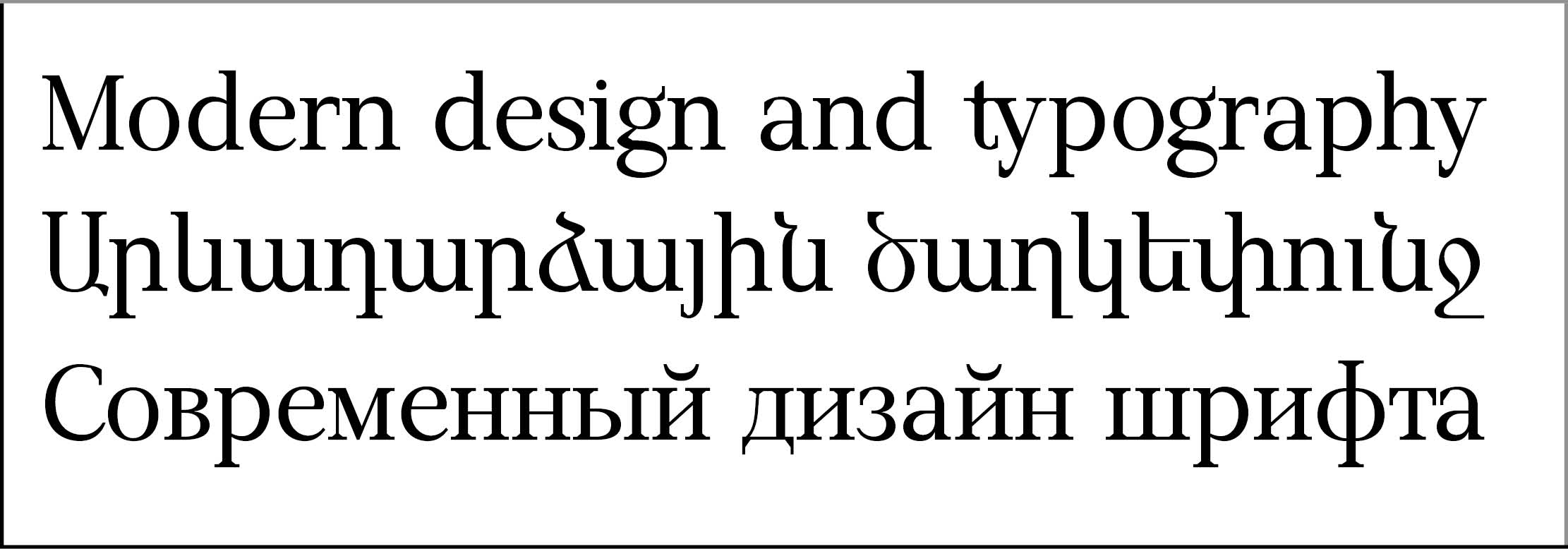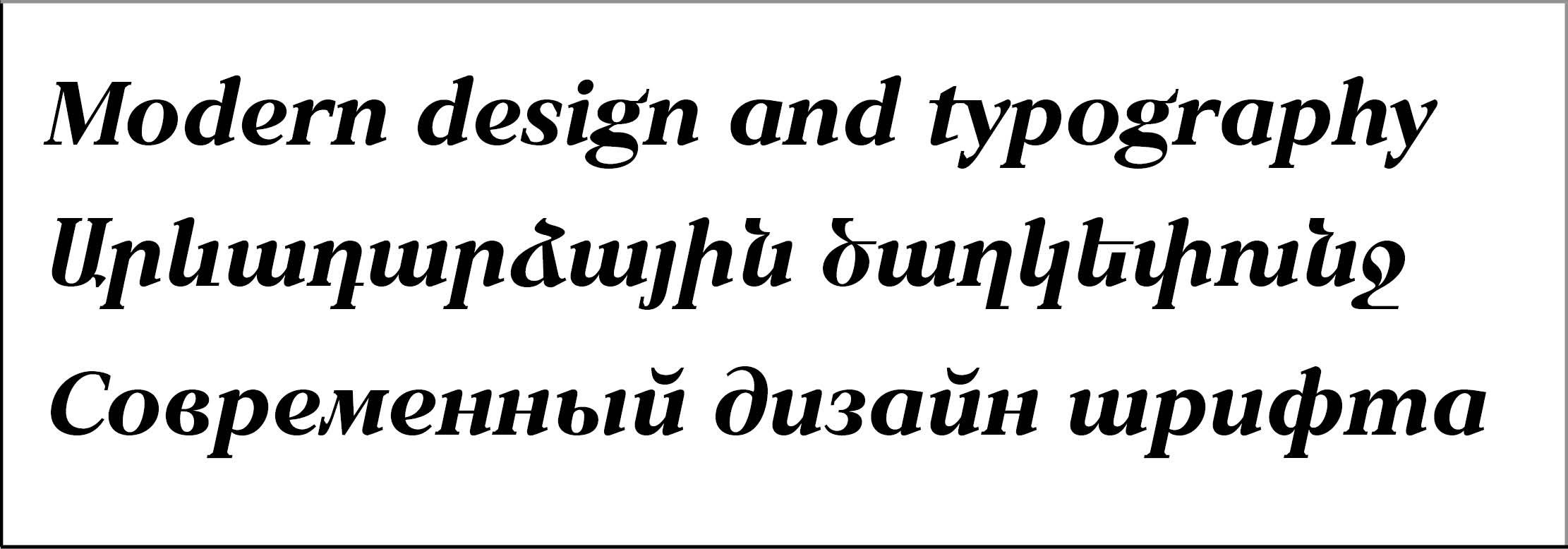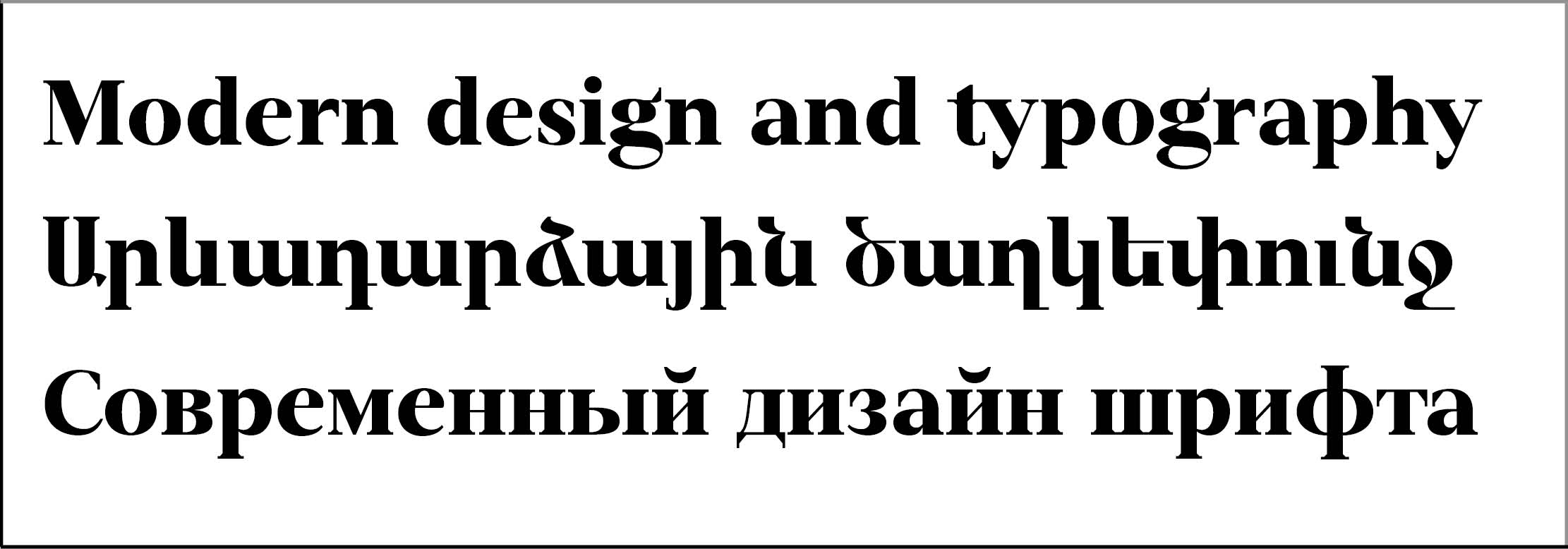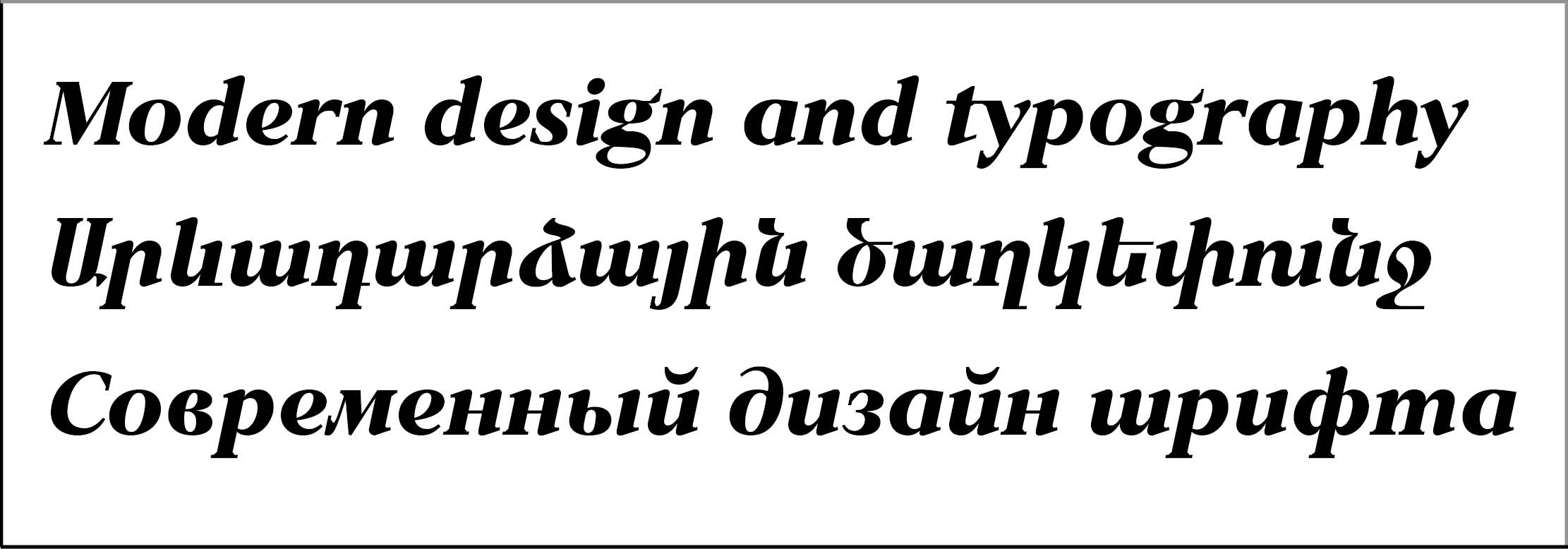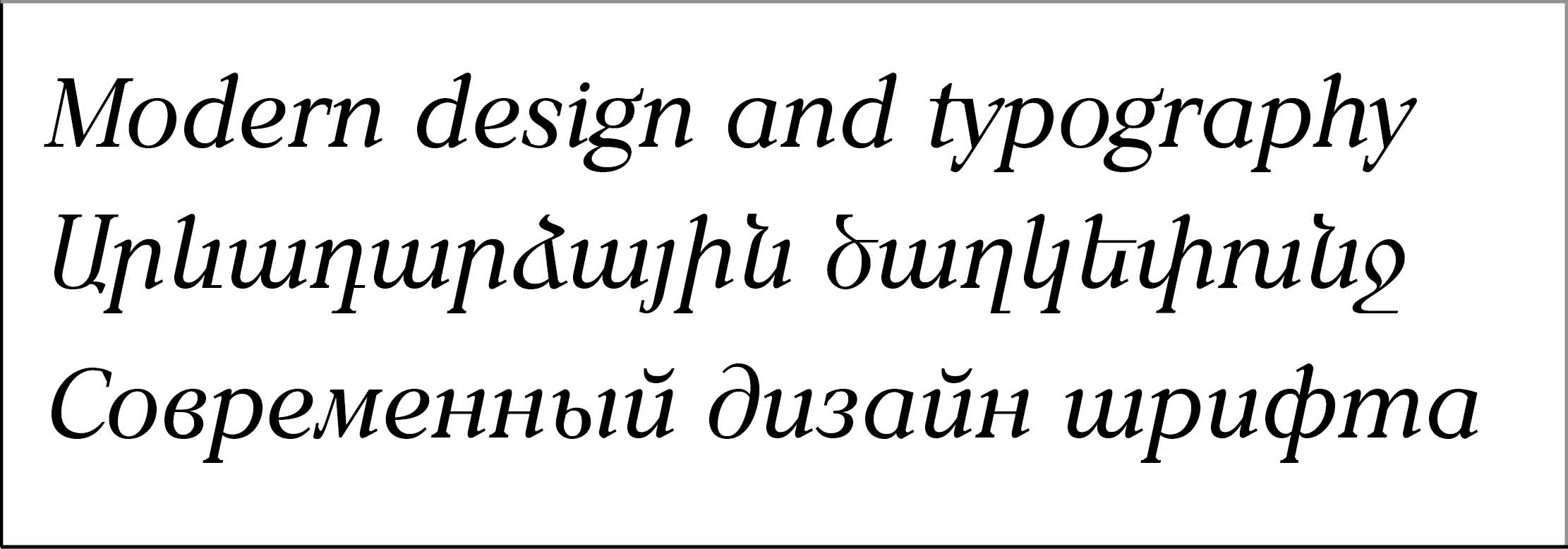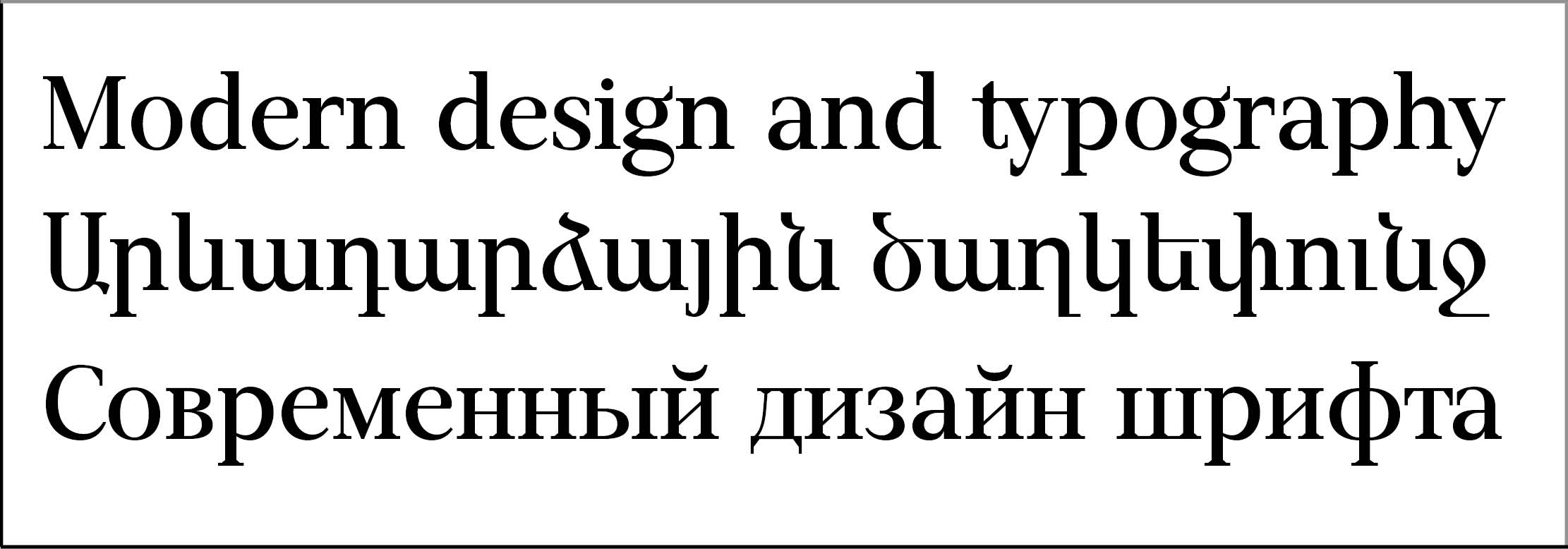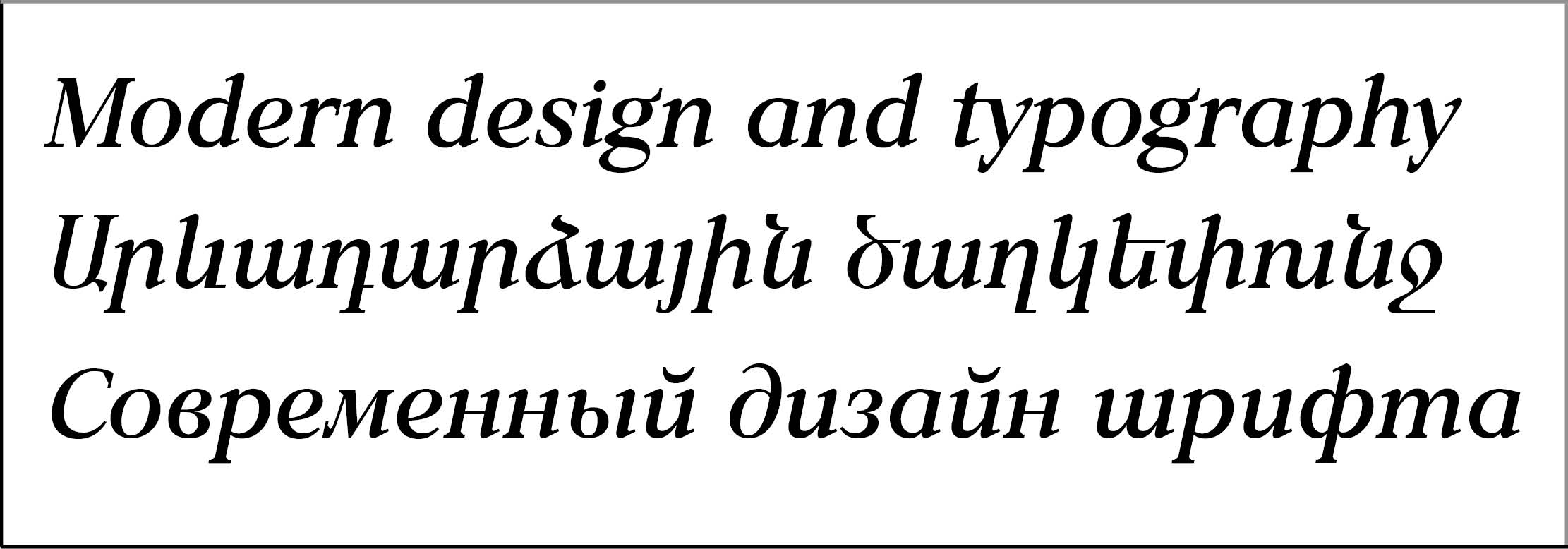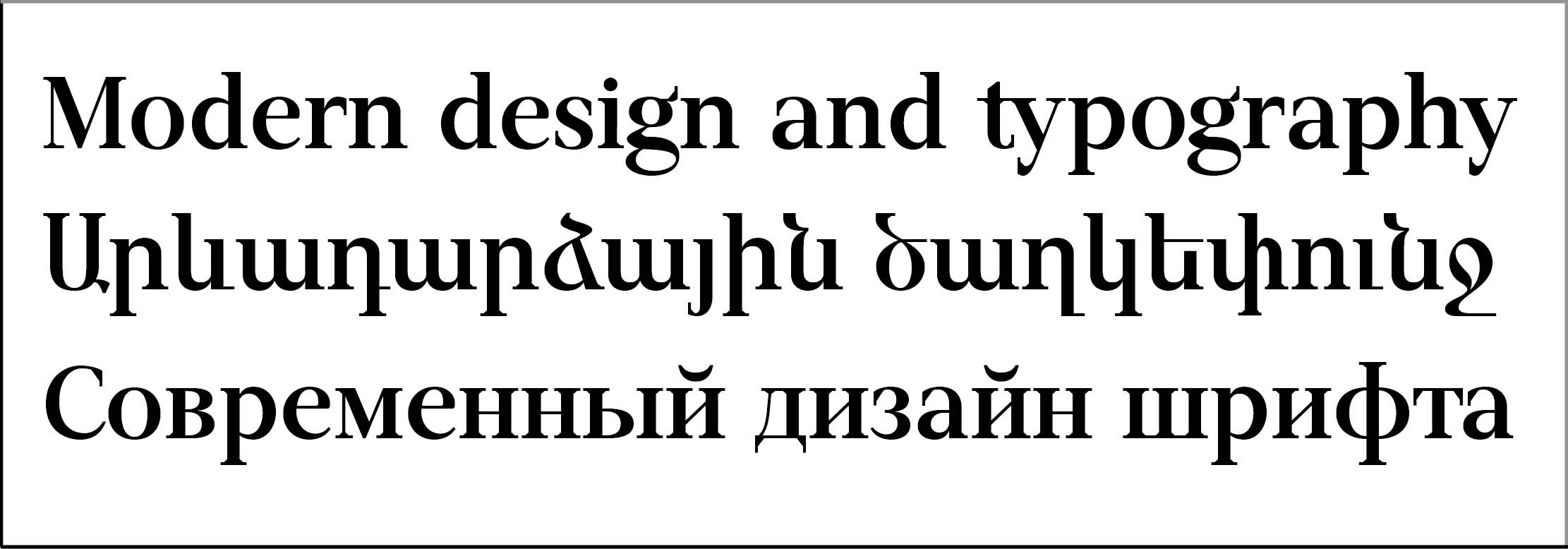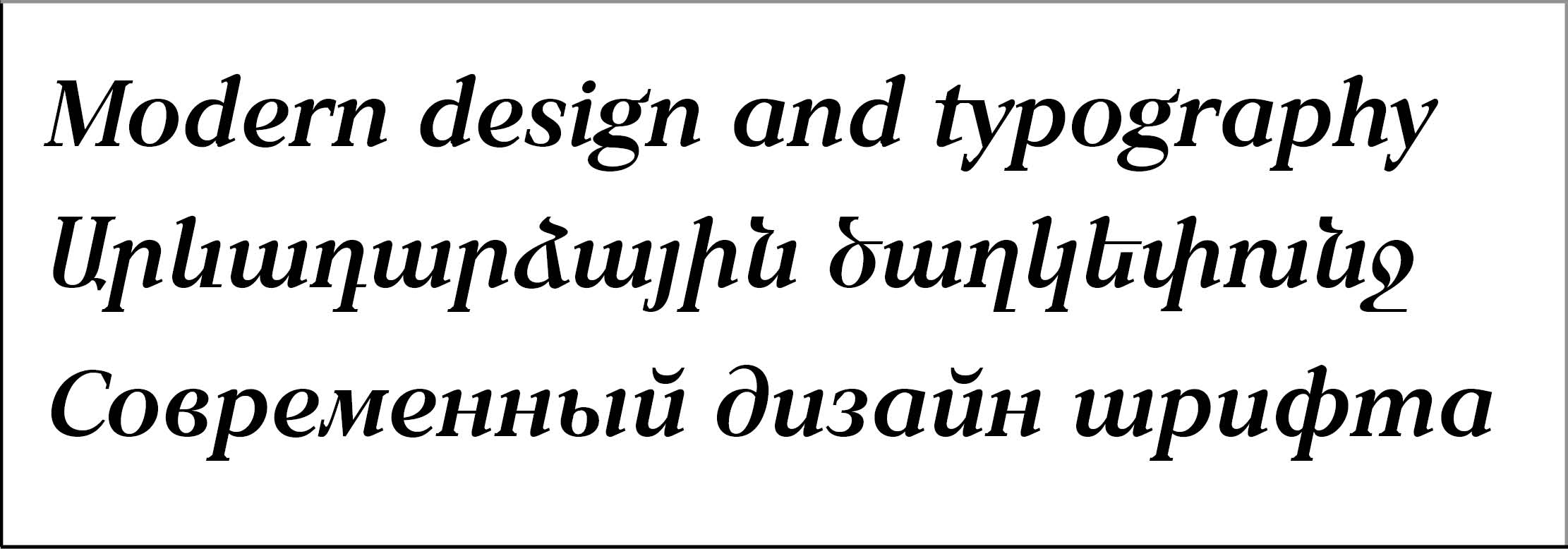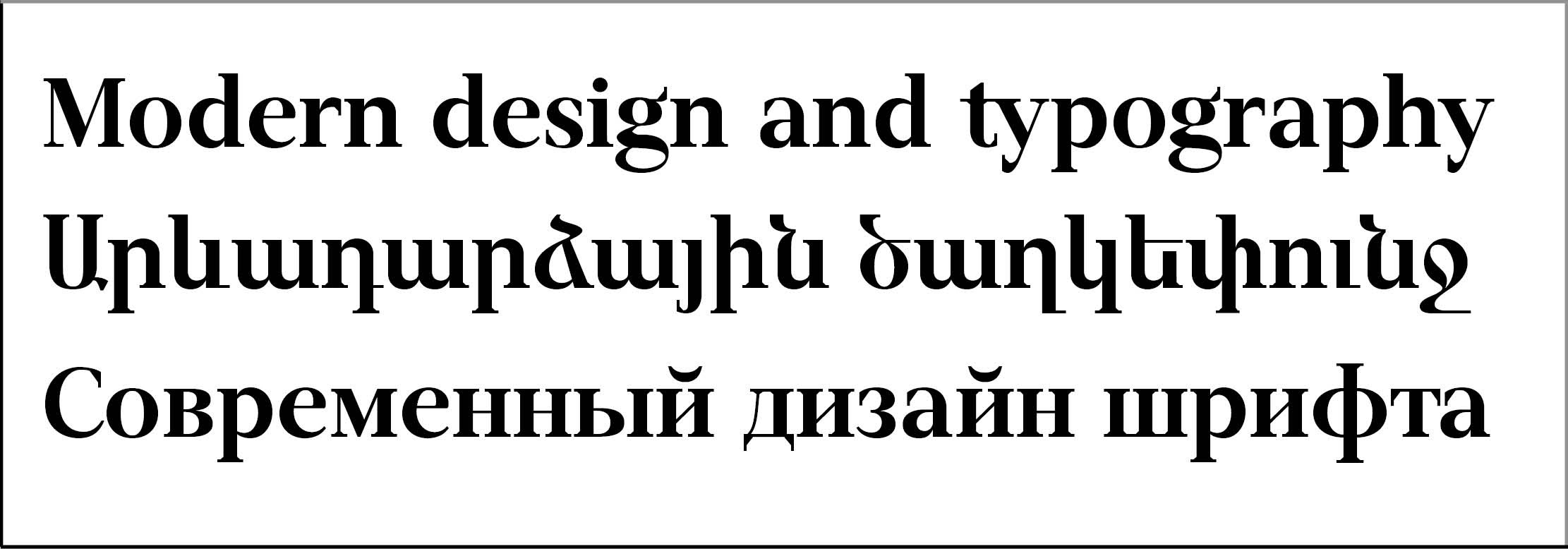
GHEA EdoPro
GHEA EdoPro is a Text and Display font for using in text, titles, posters and advertisements.
It included Armenian, Cyrillic and LatinPro language systems.
The font includes Basic and many Advanced Ligatures for Latin and Armenian.
GHEA EdoPro have original Serifs and looks very nice in small and big sizes.